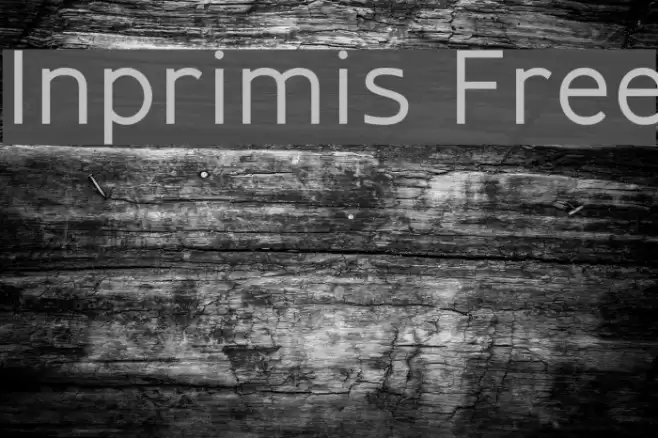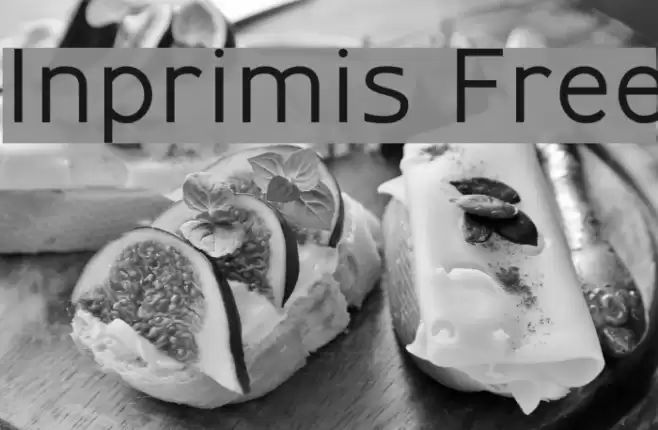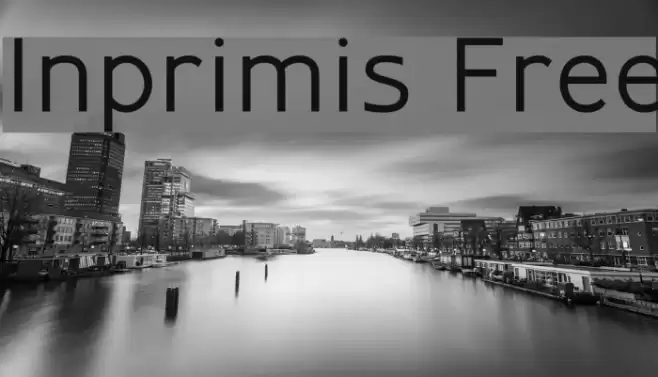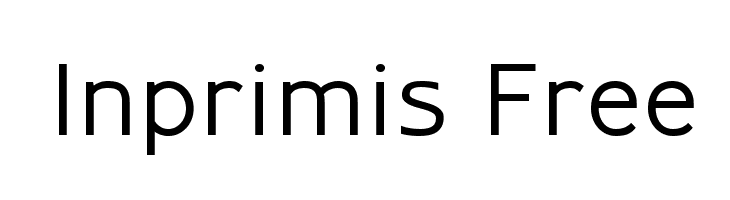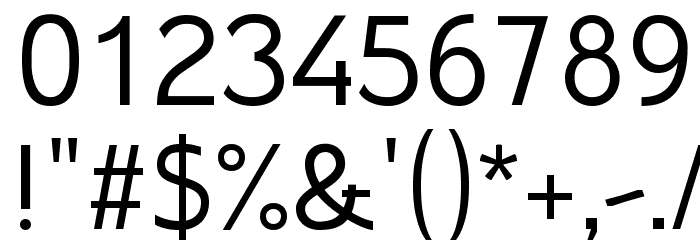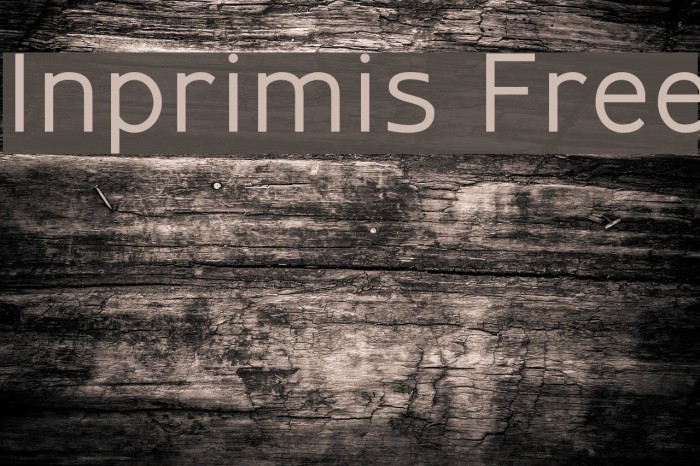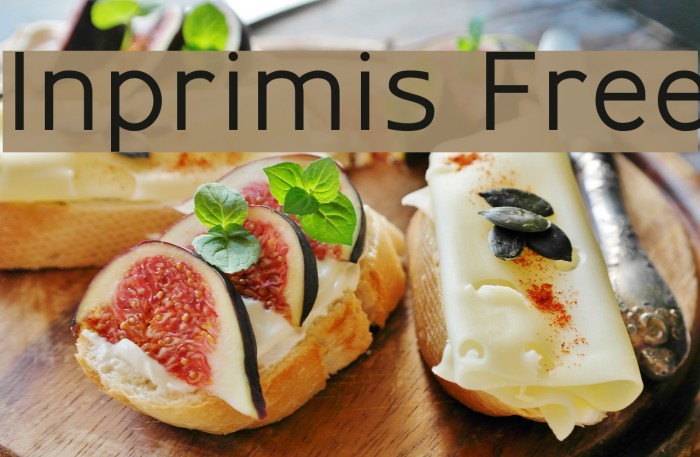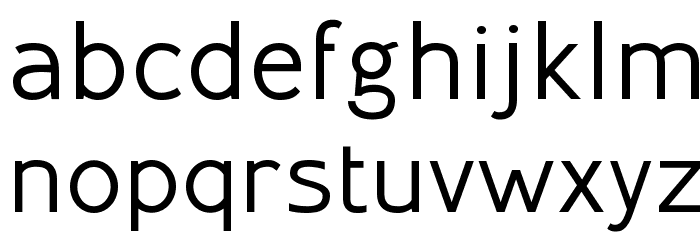
Inprimis Free Font
Inprimis Free Description
This font features a clean and modern sans-serif design, characterized by its simplicity and readability. The letters are evenly spaced with a consistent stroke width, providing a balanced and harmonious appearance. The uppercase letters are bold and assertive, while the lowercase letters maintain a friendly and approachable feel. The numerals are clear and distinct, making them easy to read. Special characters are well-integrated, maintaining the overall aesthetic of the font. This font is versatile, suitable for a wide range of applications from digital to print media.
A modern, clean sans-serif font with balanced spacing and consistent stroke width from Uncategorized fonts.
- Proposed Projects: Ideal for web design, branding, advertising, and editorial projects where clarity and modernity are key.